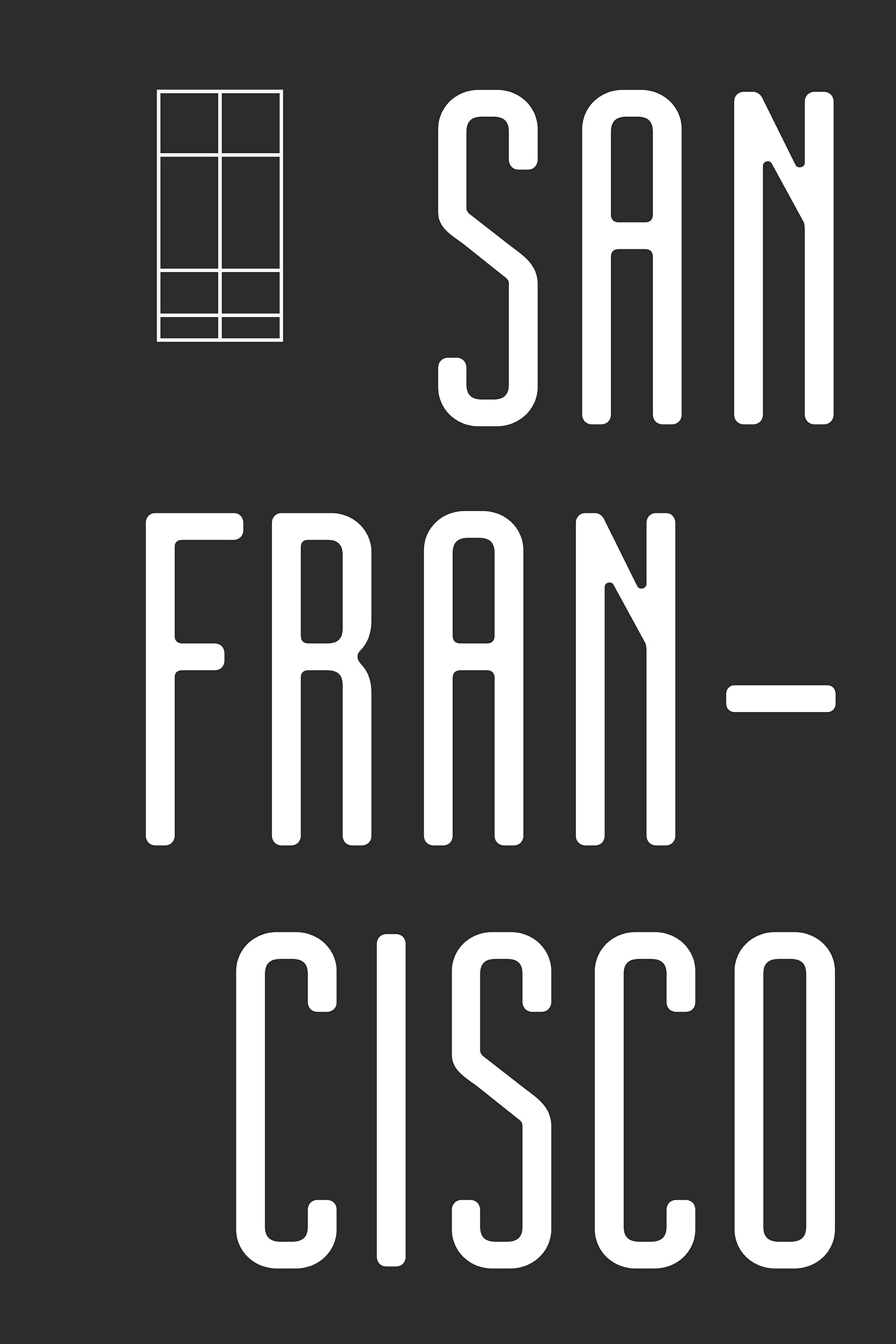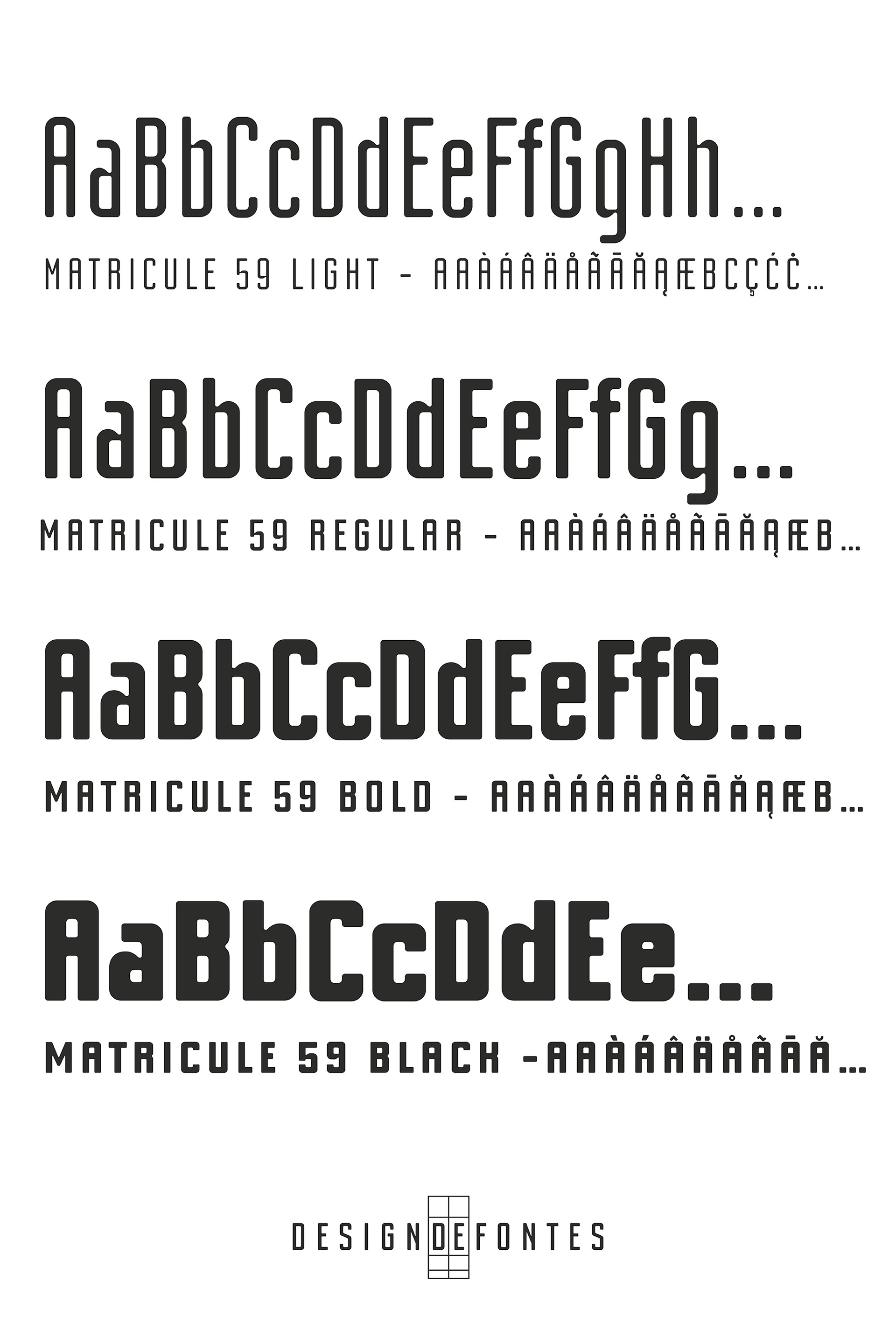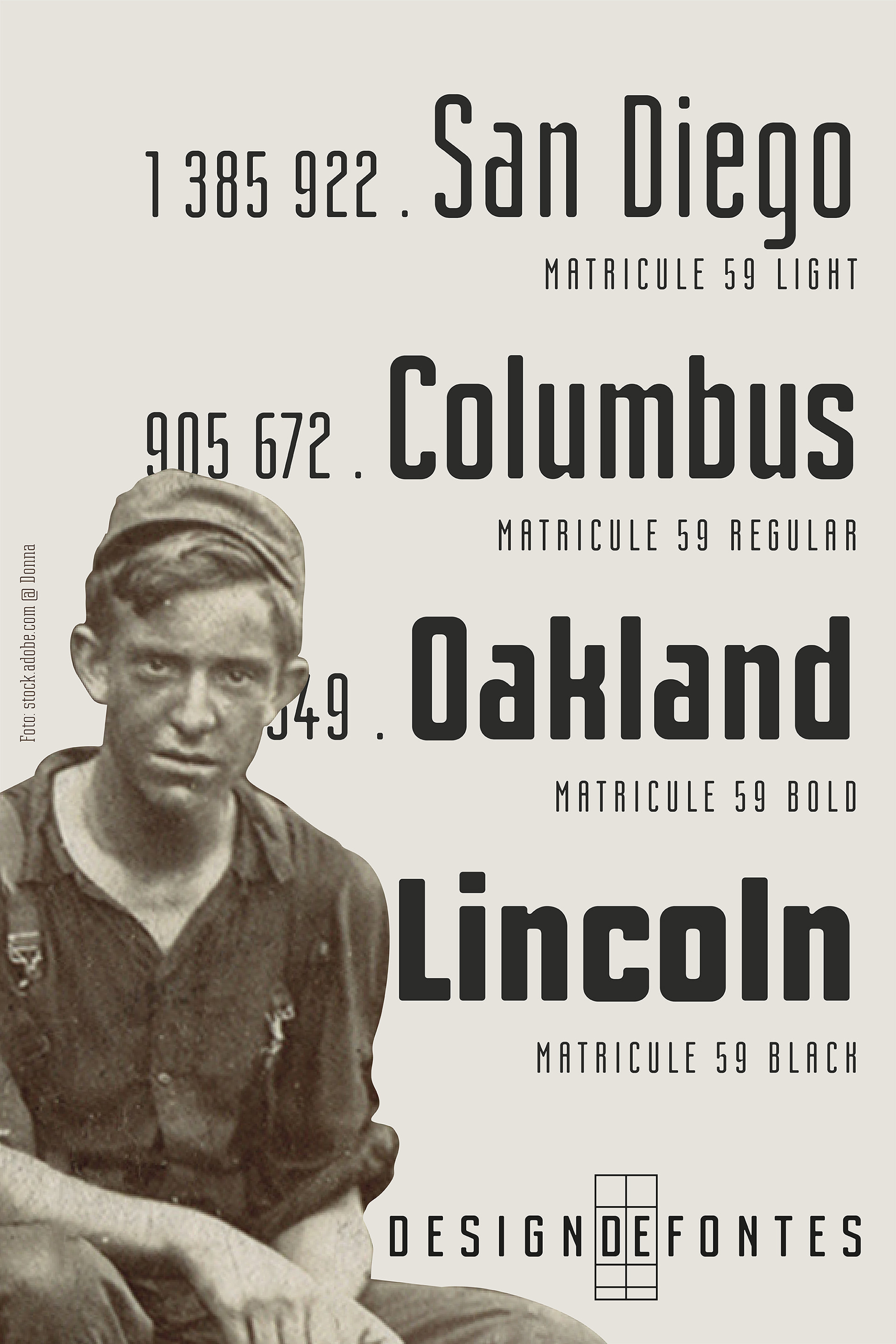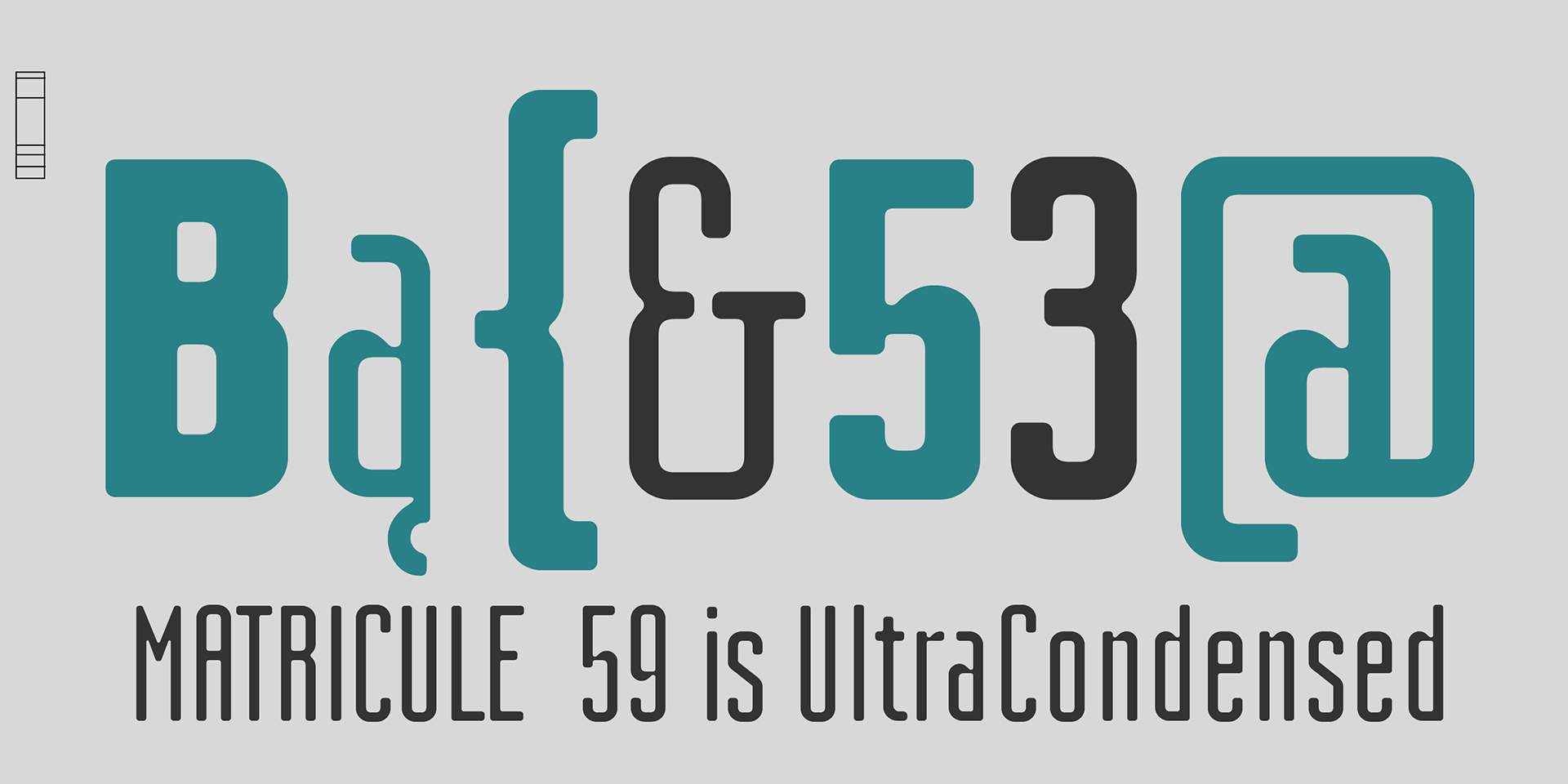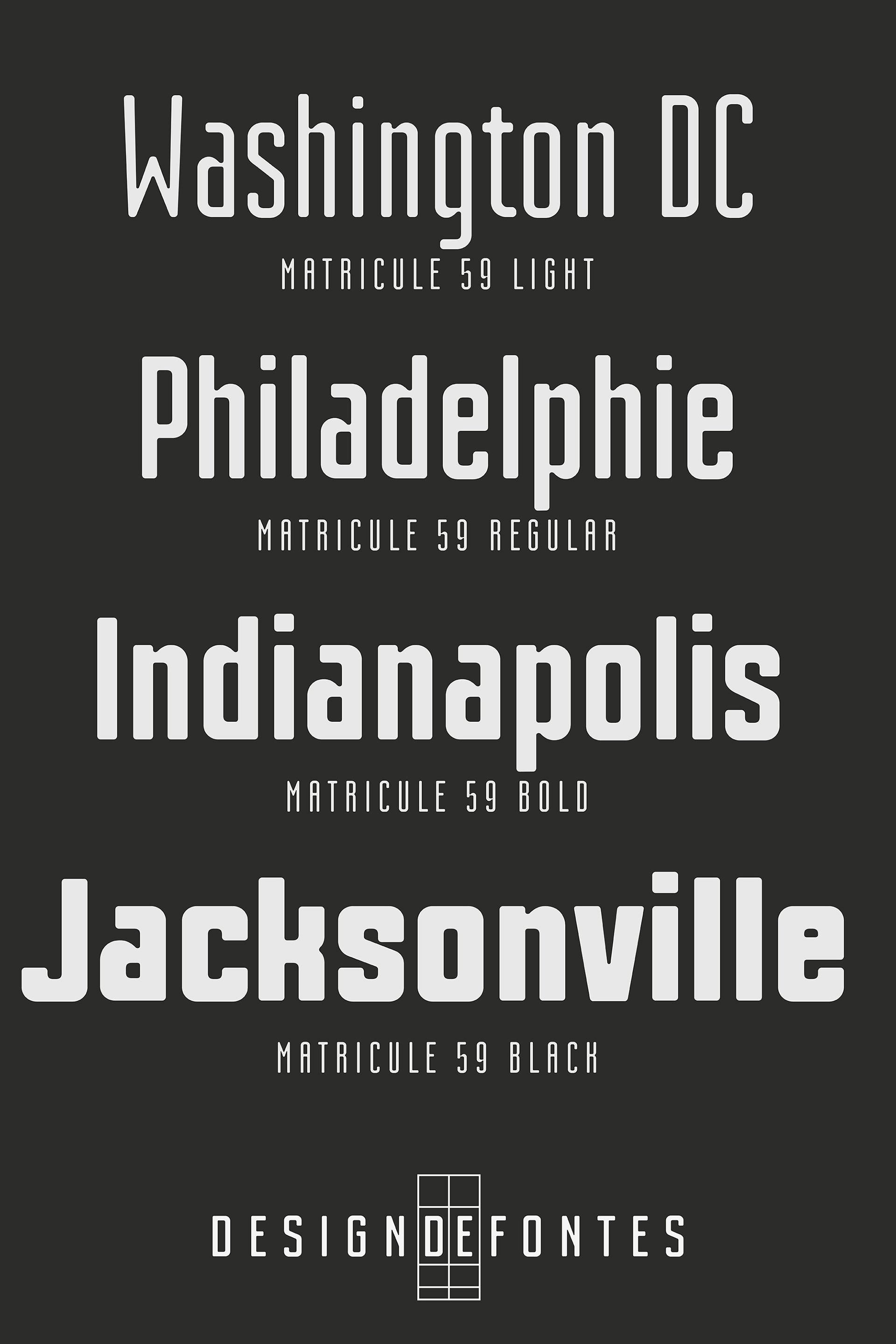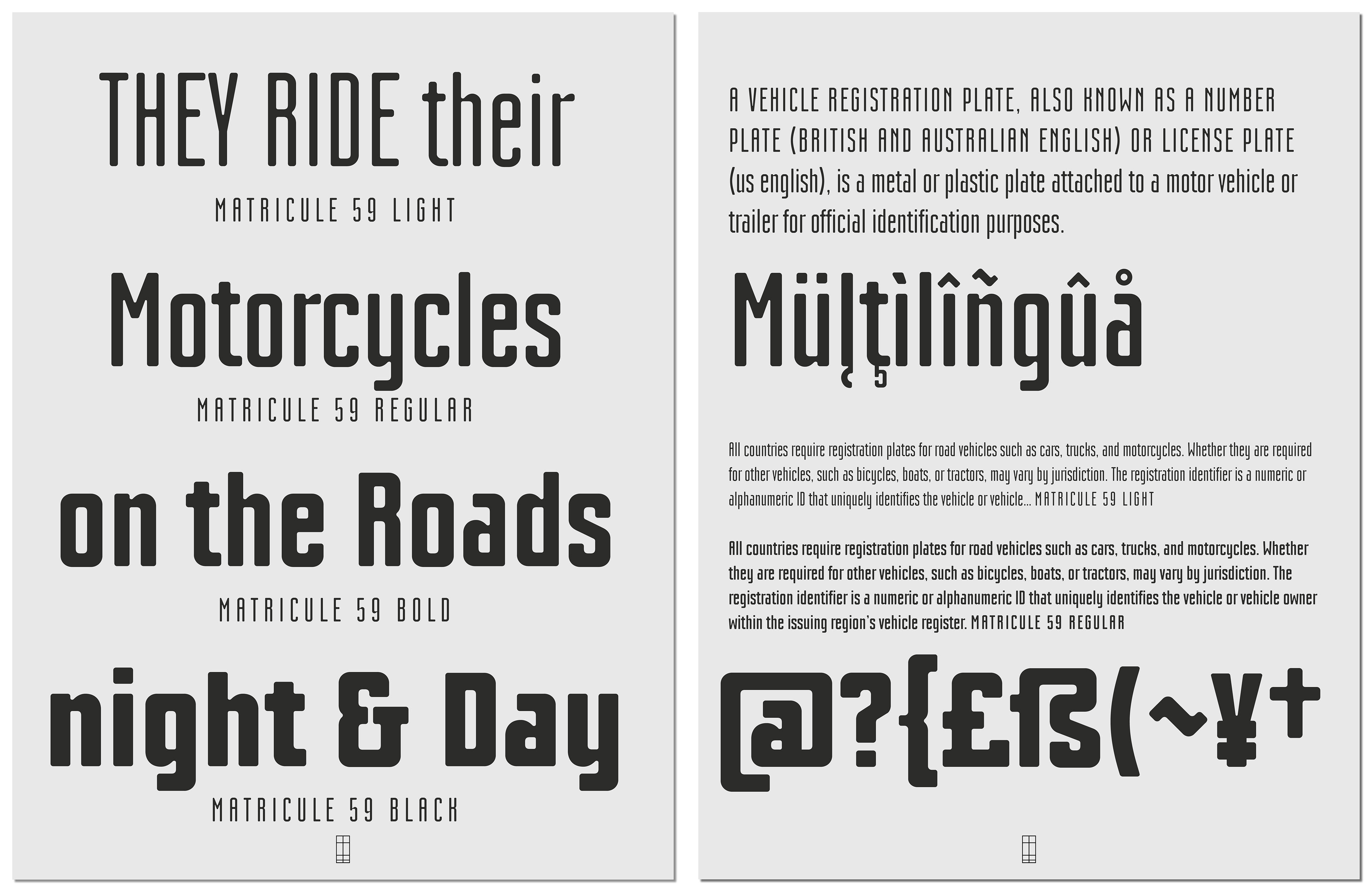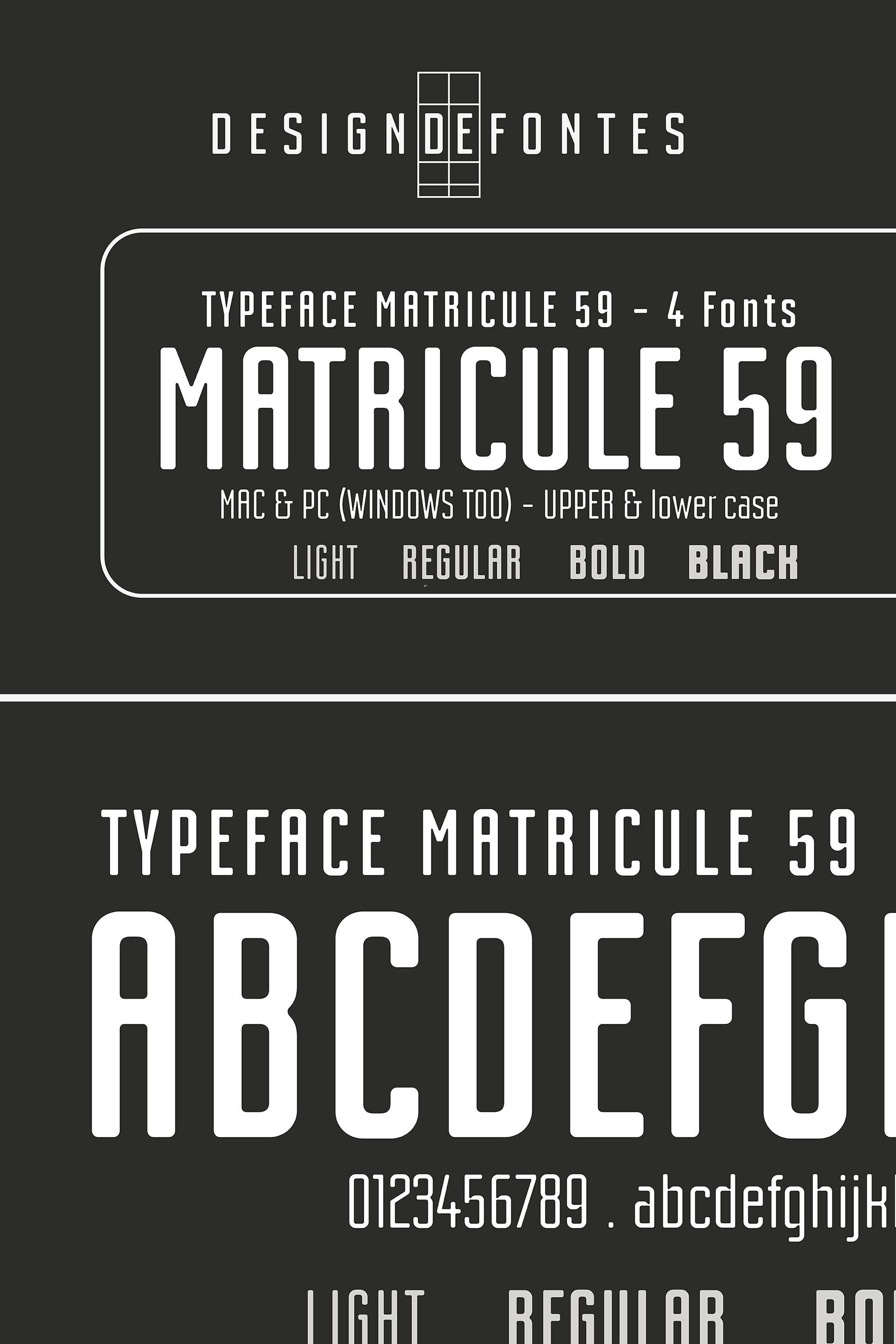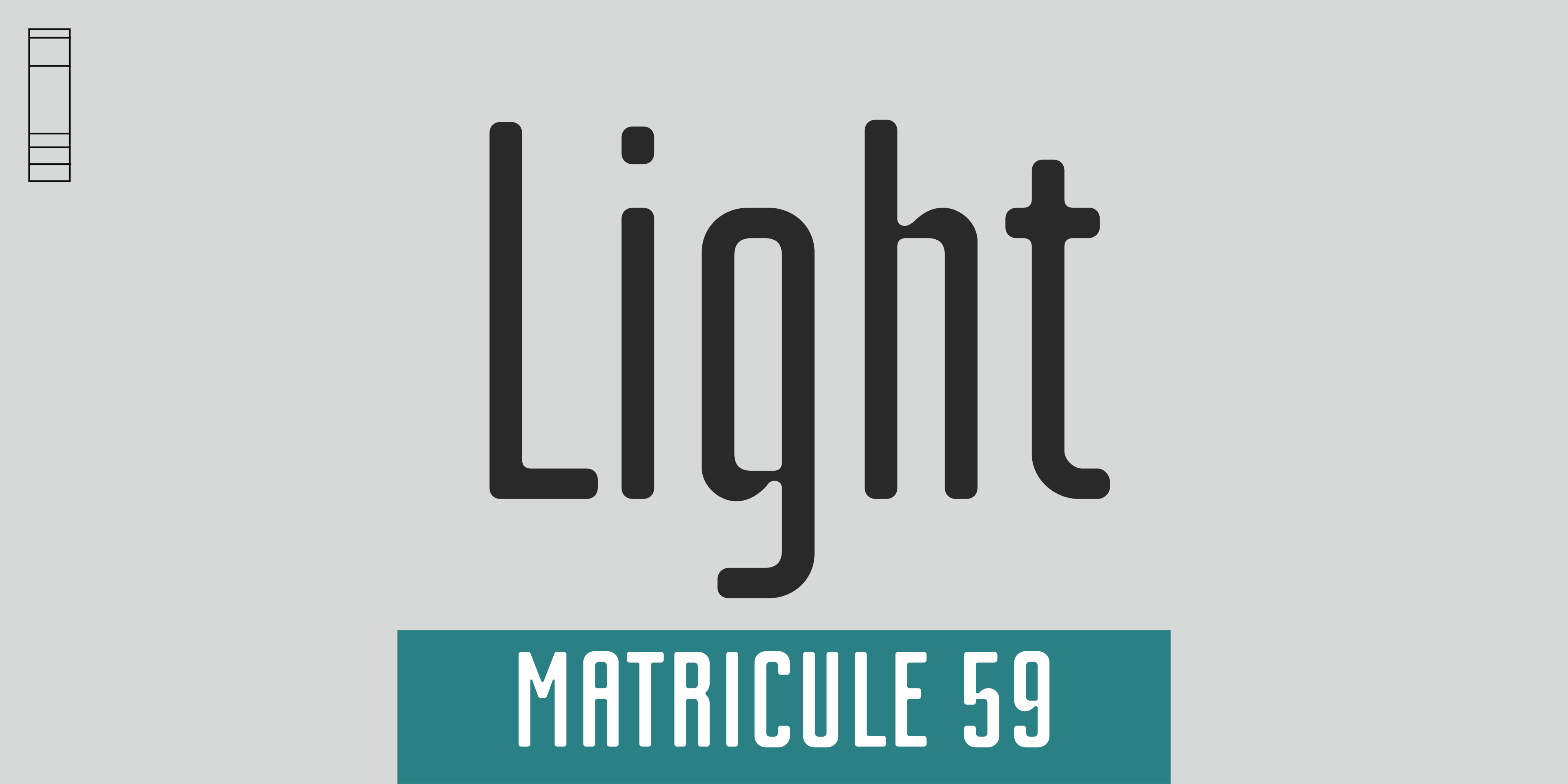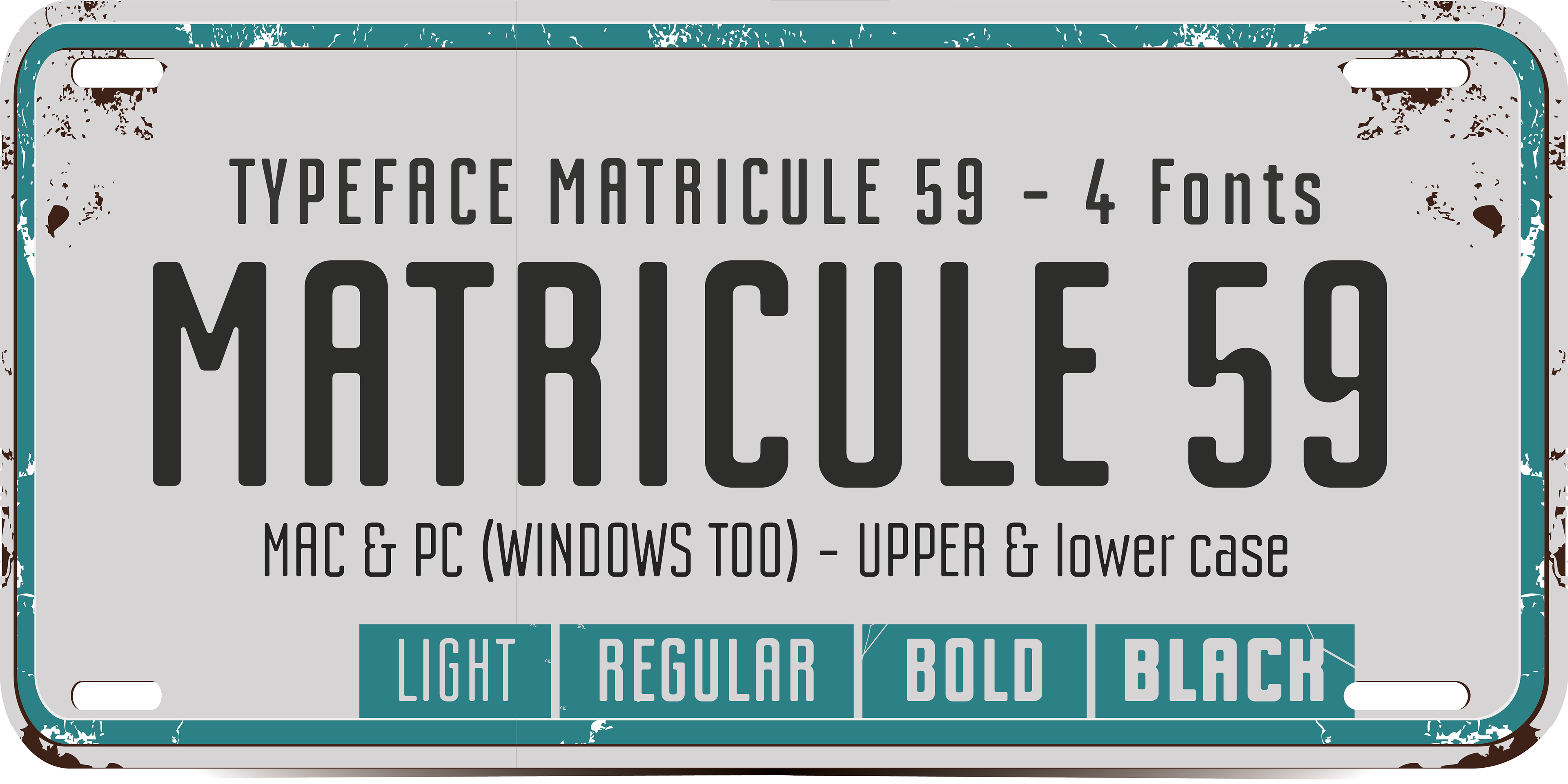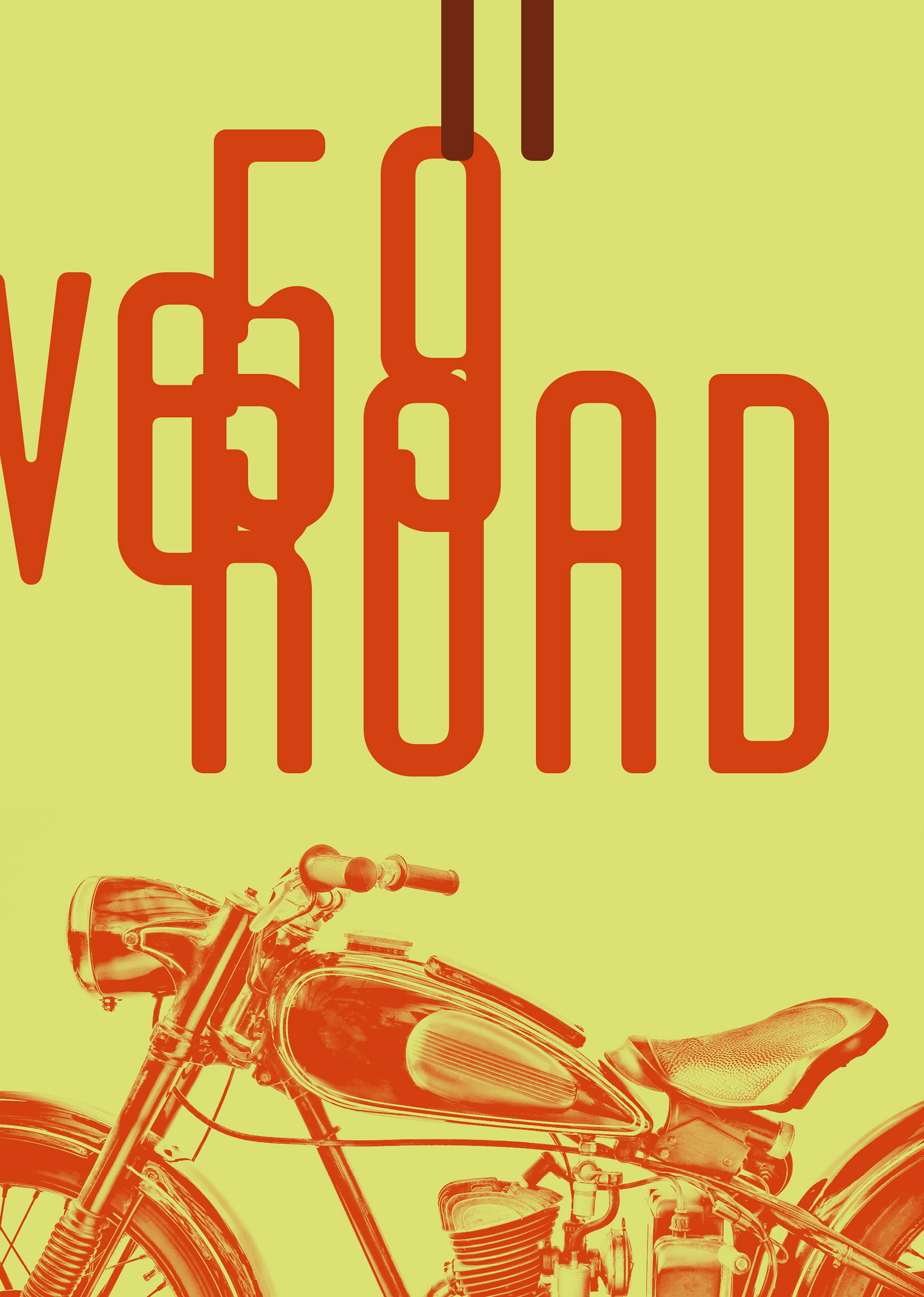
Typeface Matricule 59
Matricule 59
MATRICULE 59 IS AN ULTRACONDENSED font - designed by Loïc Choquet.
​​​​​​​Matricule 59 is a typeface whose design is inspired by license plates and by the deformations due to the stamping in the metal plates. These deformations give a very specific style, especially concerning the hairlines. It is the Ultra Condensed version of Matricule, a Typeface designed by Loïc Choquet.
It consists of 4 fonts : Light, regular, bold and black. For Mac or PC (Windows too). Well-suited for edition, logotypes, posters, etc. Each font contains 359 glyphs and supports up to 89 different languages.
Matricule 59 est un caractère dont le design est inspiré par les plaques d’immatriculations et plus particulièrement par les déformations provoquées par la pression des caractères dans les plaques métalliques. Ces déformations donnent aux caractères un style spécifique notamment concernant les déliés de liaisons de ces caractères.Matricule 59 est la version ultra condensée de Matricule, un caractère dessiné par Loïc Choquet.
Matricule 59 est composé de 4 fontes : light, regular, bold et black. Ces quatre fontes fonctionnent sur Mac et sur PC (et même sous Windows). Ce caractère est adapté pour des travaux d’édition, création de logotypes, d'affiches… Chaque fonte contient 359 glyphes permettant ainsi l’emploi de ce caractère dans au moins 89 langues différentes.
STYLES (4 FONTS - 4 fontes): Light, Regular, Bold and Black.